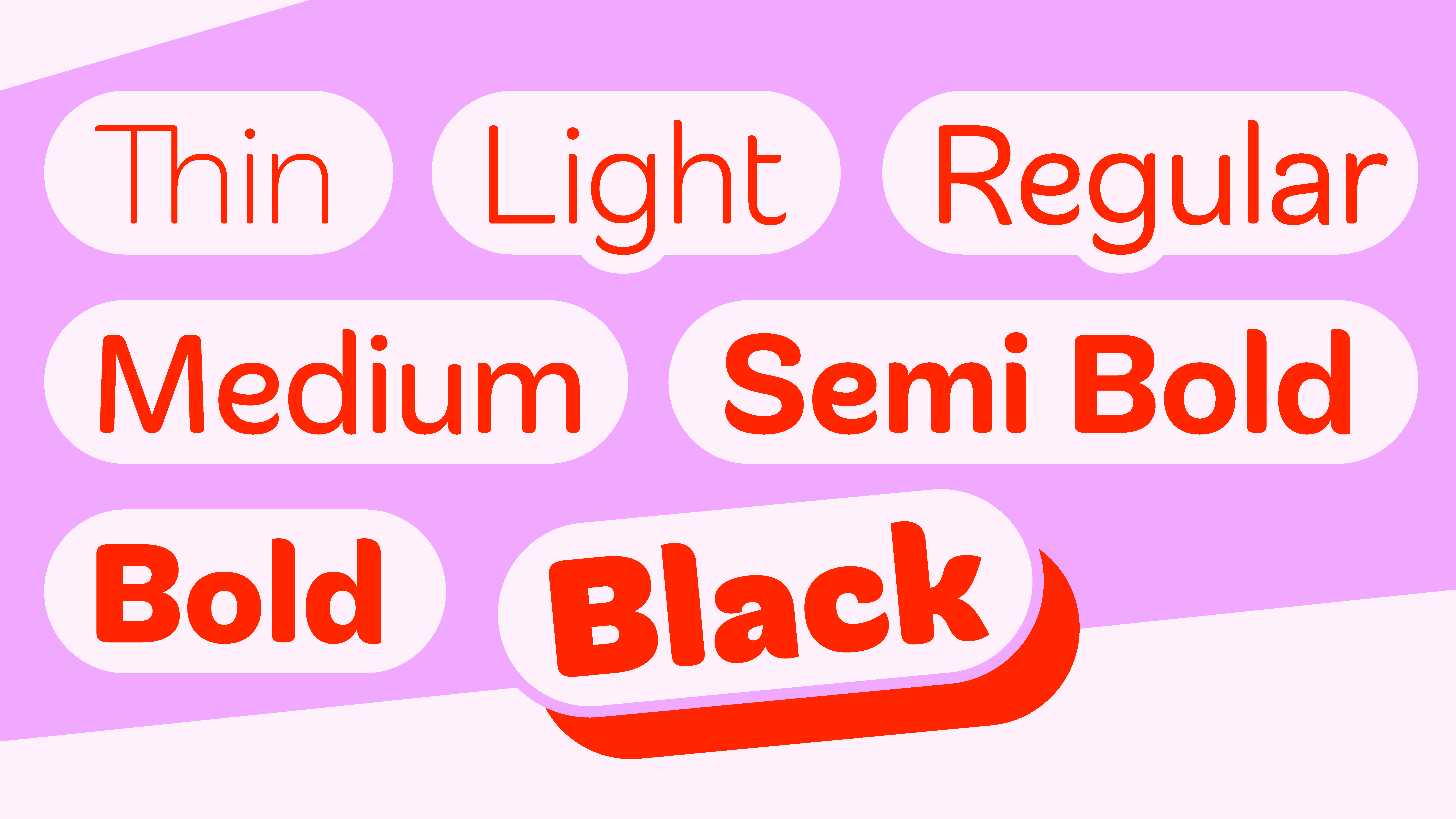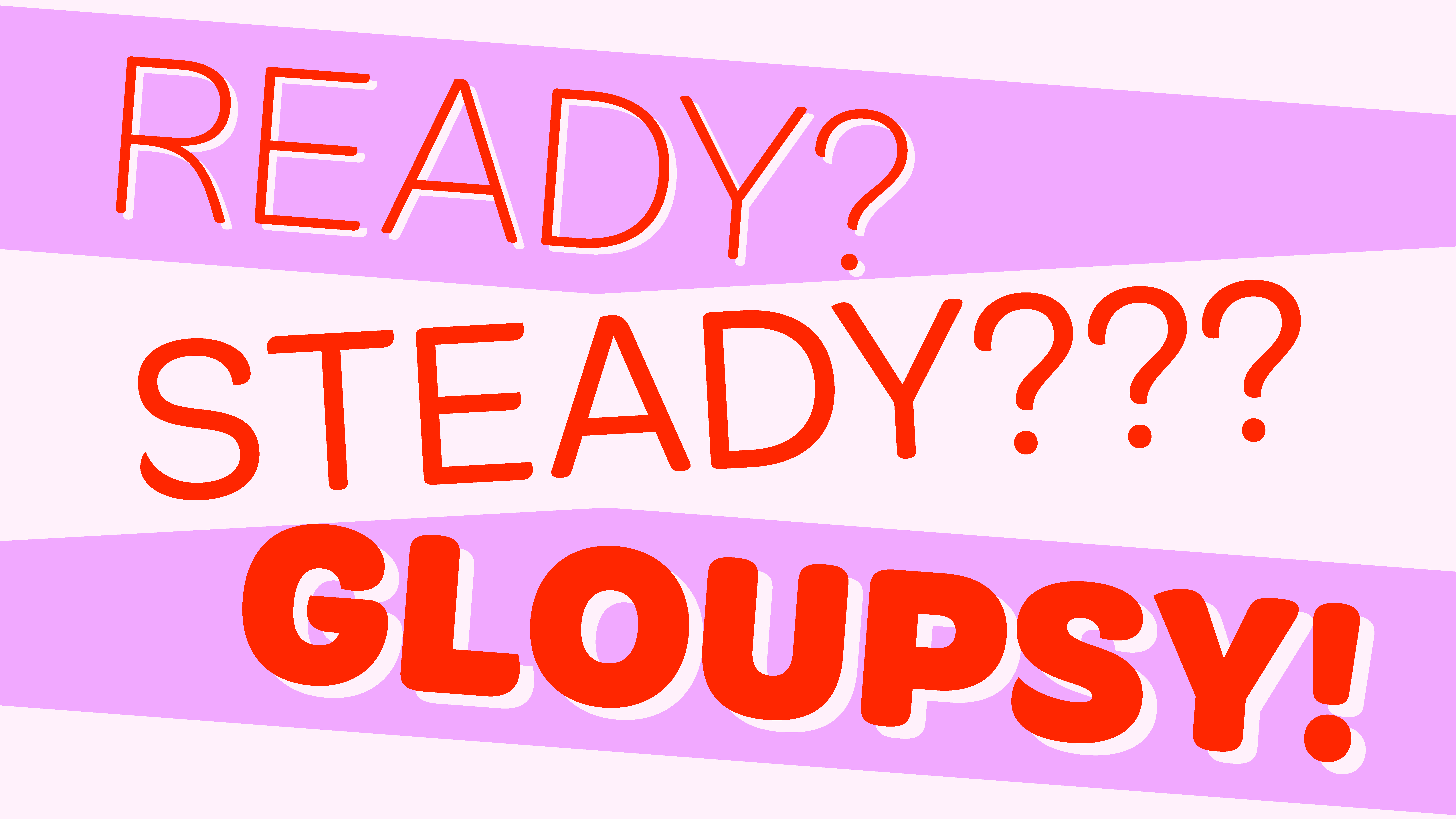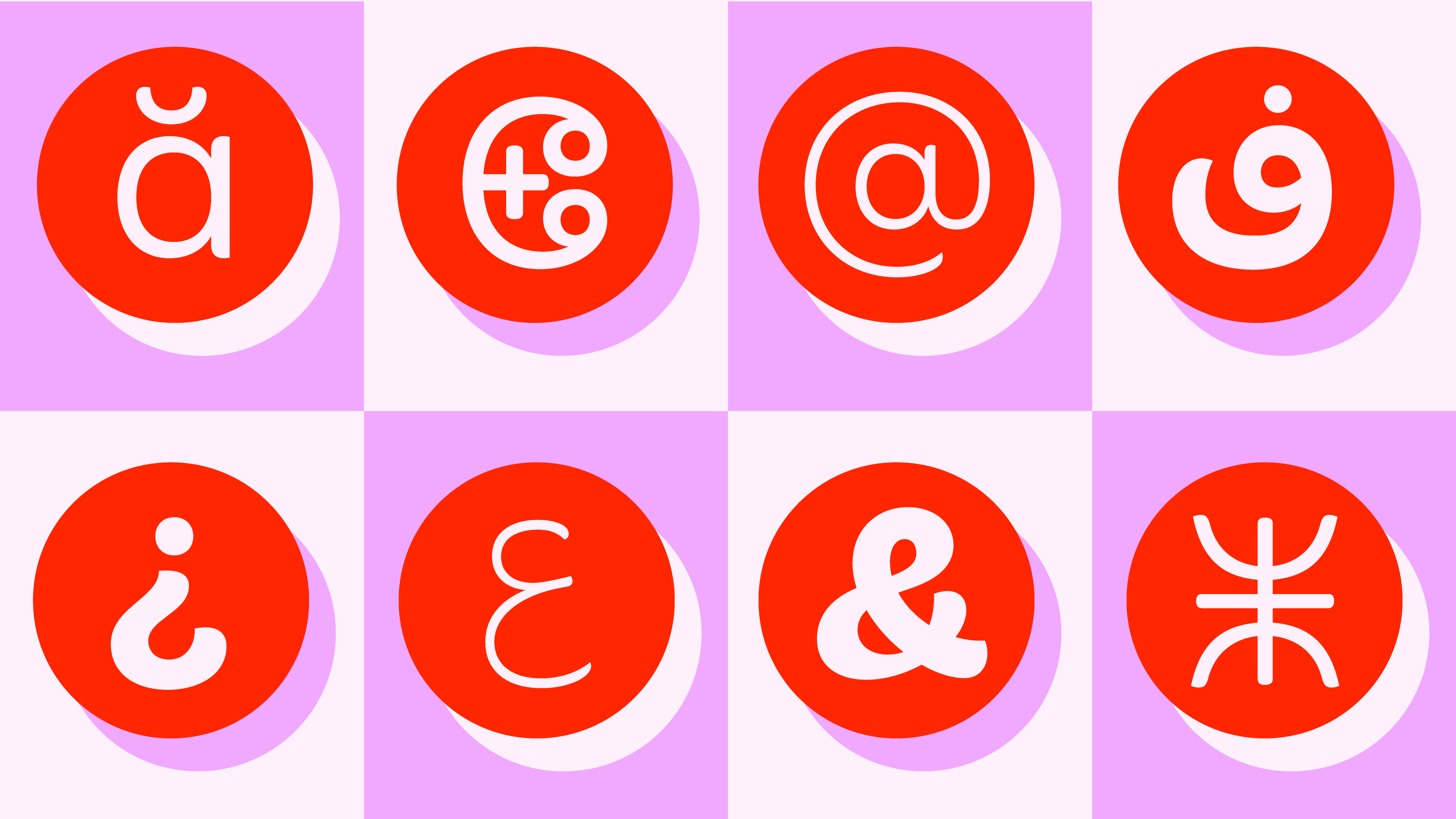
Madika
ماديكا
ⵎⴰⴷⵉⴽⴰ
Madika — Soft. Playful. Generous.
A gentle sans-serif with rounded tips and subtle curves, Madika brings a touch of sweetness to every word. Designed in 7 weights, it supports Latin, Arabic and Tifinagh scripts, blending fluidity and friendliness across writing systems. Madika balances clarity, charm, and a hint of delicacy: ideal for brands that want to speak with both confidence and warmth.
Designers: Brahim Boucheikha, Gia Tran, Jean-Baptiste Pernette, Étienne Guégano, Léo Rosina